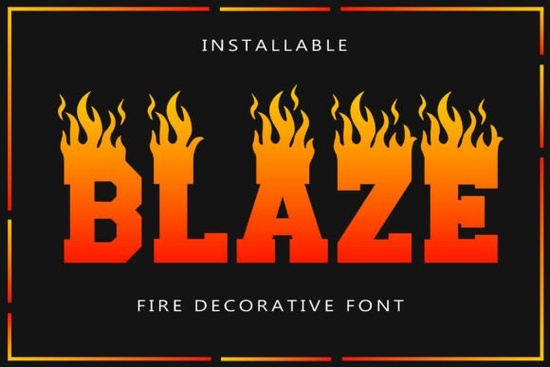
When you're looking for a font that can really make your designs stand out, Blaze Font is a fantastic choice. This high-octane decorative font is designed to bring a fiery, dynamic energy to any project. Whether you're working on automotive branding, extreme sports graphics, or even hot sauce packaging, Blaze Font has the power and intensity to make your message roar.
What Makes Blaze Font Stand Out?
Blaze Font is not just another typeface; it's a visual explosion. The heavy, slab-serif base of the font erupts into dynamic, licking flames, giving it a unique and eye-catching look. This design is perfect for high-impact headlines, making it ideal for projects that need to grab attention and leave a lasting impression.
Perfect for High-Impact Headlines
One of the key features of Blaze Font is its ability to create high-impact headlines. The bold, flame-like elements add a sense of urgency and excitement, making it perfect for concert posters, event flyers, and other promotional materials. If you need your text to scream "energy," this font is your go-to choice.
Versatile Aesthetic Options
Blaze Font is incredibly versatile, fitting a wide range of aesthetic needs. For those aiming for a vintage hot-rod look, the font's classic, robust style will fit perfectly. On the other hand, if you're going for a modern, heavy-metal aesthetic, the intense, fiery details will do the job. This versatility makes it a great addition to any designer's toolkit.
Using Blaze Font in Different Projects
Let's dive into some specific ways you can use Blaze Font in your projects:
- Automotive Branding: Use Blaze Font for logos, signage, and promotional materials for car shows, auto shops, and racing events. The font's powerful, rugged look complements the automotive industry's high-energy vibe.
- Extreme Sports Graphics: Incorporate Blaze Font into posters, t-shirts, and social media graphics for extreme sports like skateboarding, BMX, and motocross. The dynamic, fiery elements will match the adrenaline-fueled nature of these sports.
- BBQ and Hot Sauce Packaging: Add Blaze Font to labels and packaging for BBQ sauces, hot sauces, and other spicy products. The font's intense, smoky appearance will make your product stand out on the shelf.
- Concert Posters: Design eye-catching concert posters with Blaze Font. The font's explosive, energetic style will help draw attention to your event and get people excited about the music.
Complementary Fonts to Enhance Your Designs
Tips for Using Blaze Font Effectively
To get the most out of Blaze Font, here are a few tips:
- Use It Sparingly: While Blaze Font is striking, it can be overwhelming if overused. Use it for headlines and key text to make the most impact.
- Choose Complementary Colors: Pair Blaze Font with colors that enhance its fiery look, such as reds, oranges, and yellows. You can also use contrasting colors like black or white to make the text pop.
- Test Readability: Make sure the text remains readable, especially at smaller sizes. Consider using a simpler font for body text and reserve Blaze for larger, more prominent elements.
By following these tips, you can create designs that are both visually stunning and effective. Blaze Font is a powerful tool for any designer, crafter, or print-on-demand seller looking to add a burst of energy to their projects.
Next Steps
Now that you know how to use Blaze Font effectively, here’s a quick checklist to help you get started:
- Download Blaze Font from Creative Fabrica.
- Brainstorm your project ideas and identify where Blaze Font can make the biggest impact.
- Choose complementary fonts and colors to enhance your design.
- Create a mockup or draft of your design to test readability and overall aesthetics.
- Finalize your design and share it with the world!
With Blaze Font, you have the tools to create designs that truly stand out. Start experimenting and see how this dynamic, fiery font can transform your projects.